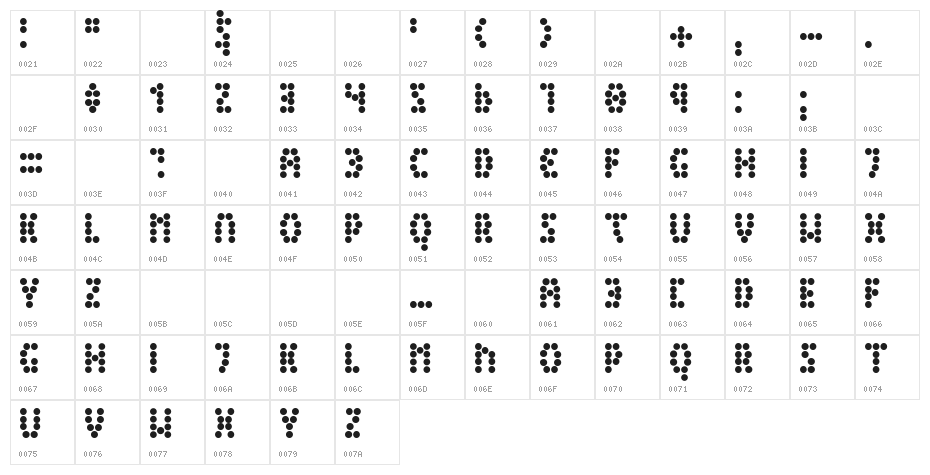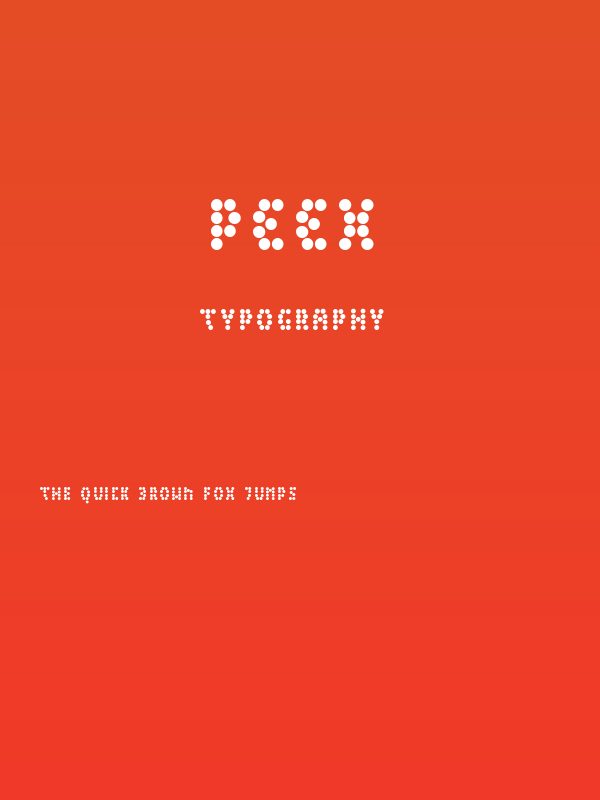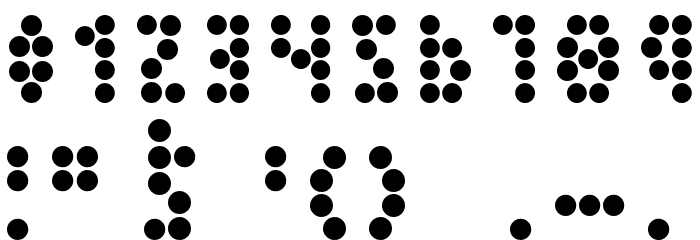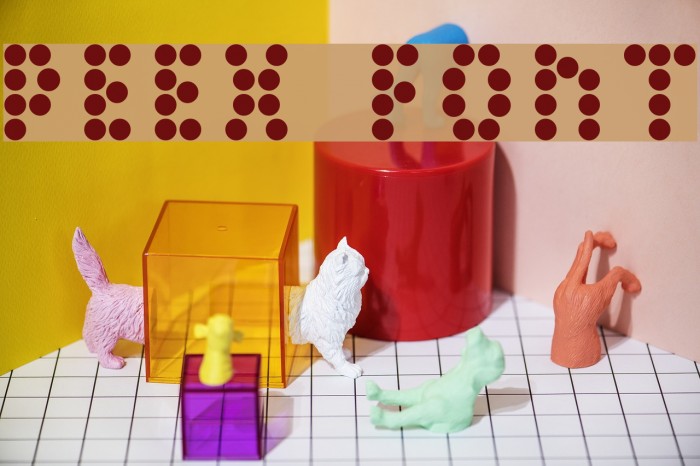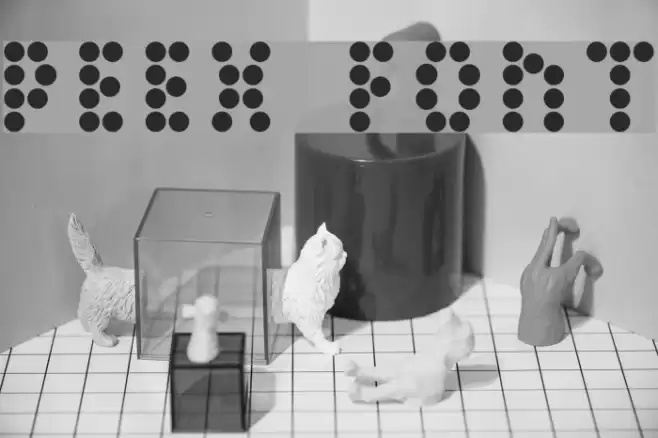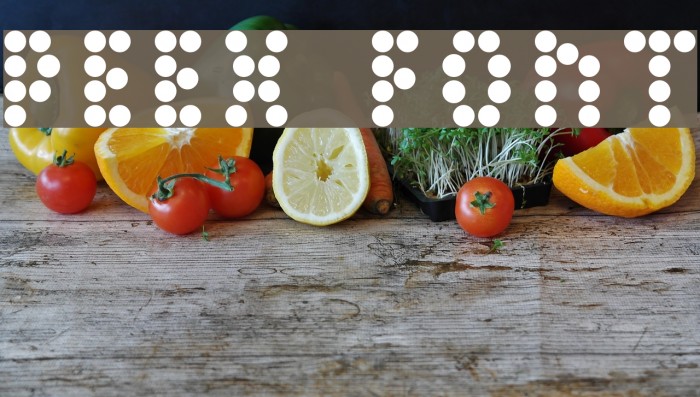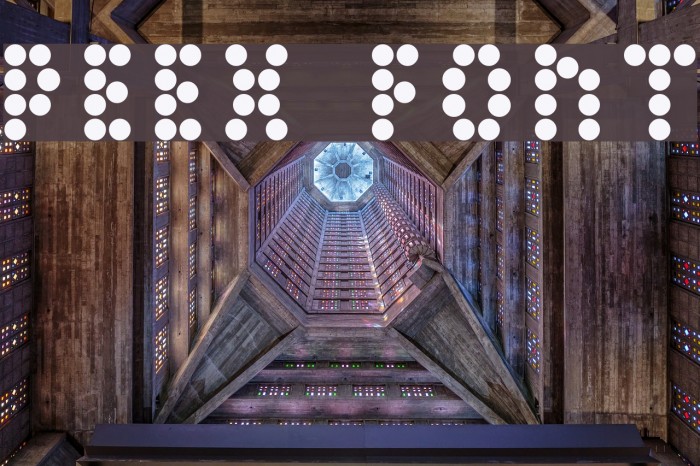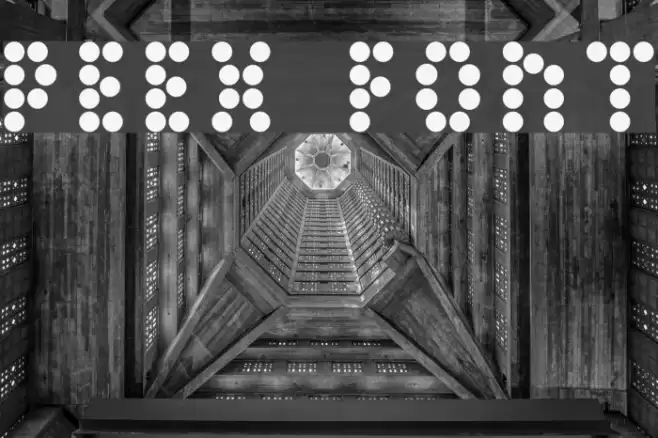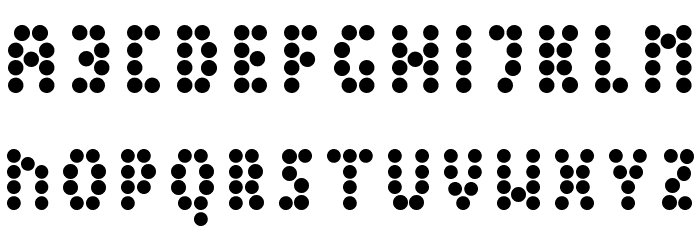
Peex Font
Peex Description
This font features a unique dot matrix style, where each character is composed of a series of evenly spaced dots. The design is reminiscent of digital displays or LED screens, giving it a modern and technological feel. The characters are uniformly constructed, maintaining a consistent height and width across both uppercase and lowercase letters, as well as numerals and special symbols. This uniformity ensures readability while adding a playful, retro aesthetic. The font's geometric nature makes it suitable for creative projects that require a futuristic or digital theme.
| Proposed Projects | Ideal for digital displays, tech-themed designs, retro posters, and creative branding. |